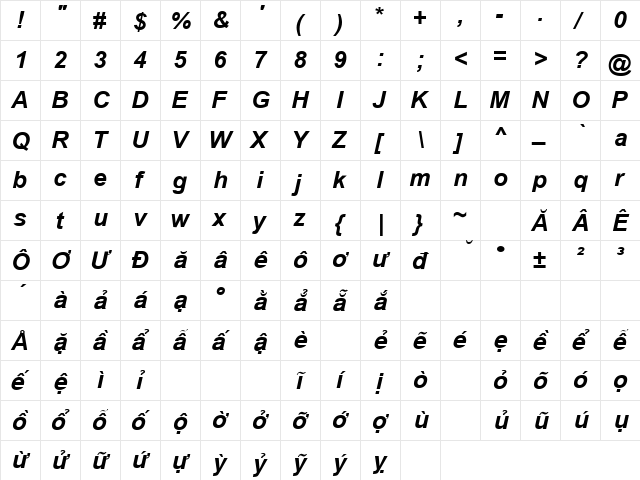
.VnArial Bold Italic
Design Context for .VnArial Typeface
.VnArial takes a measured approach to typography — its balanced proportions and neutral character make it a reliable workhorse for both digital and print work. The slanted form adds forward momentum and visual energy. The heavy weight commands attention and anchors typographic hierarchies.